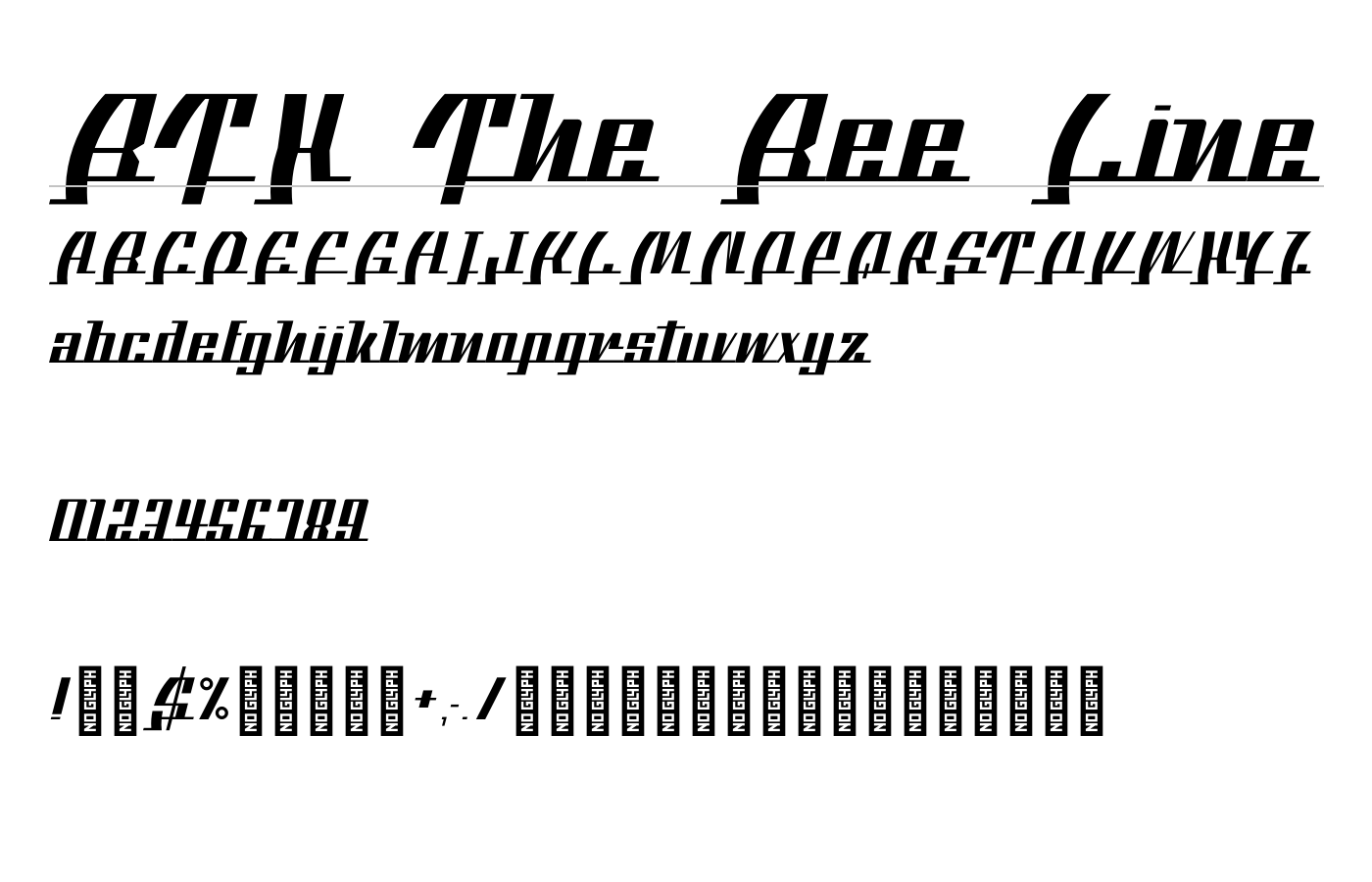
BTX The Bee Line is a bold, condensed sans serif font with a futuristic and dynamic feel, characterized by its sharp, angular strokes and pronounced slant. Its high contrast and streamlined letterforms create a sense of speed and movement, making it ideal for modern branding, sports, and tech-related designs. This font works best in headlines and logos where a strong, energetic impression is desired.
BTX The Bee Line Font